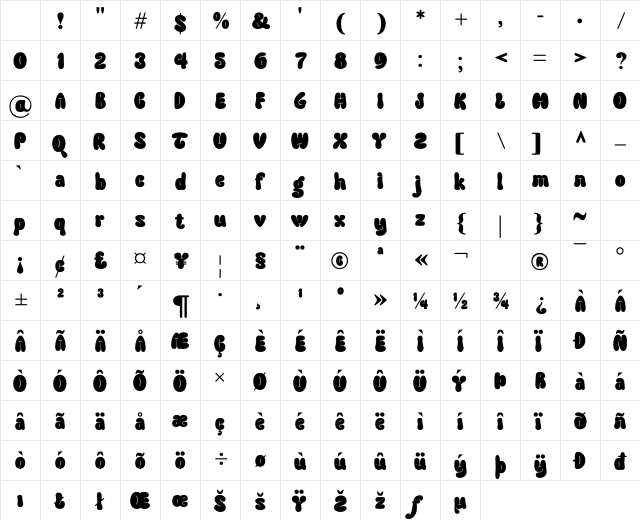
Funy Beach has an approachable, lighthearted character - its loose, expressive forms are well-suited to children's content, casual branding, and fun-first design.
Font Pairing: Pairs well with a rounded or humanist sans for body copy, maintaining the friendly tone without relying on Funy Beach to carry extended reading.
Pro Tip: Use Funy Beach at larger display sizes where its expressive character can land. Pair with a clean, simple sans for body copy to maintain readability.